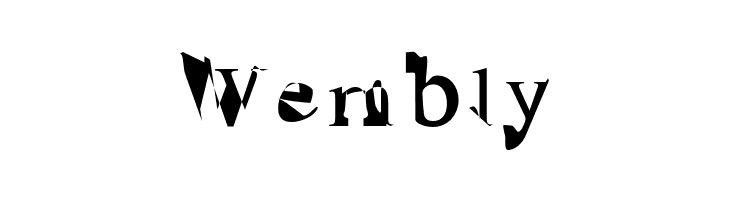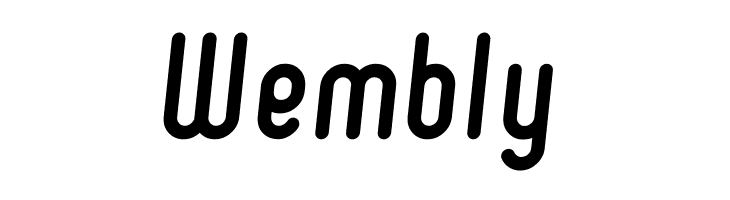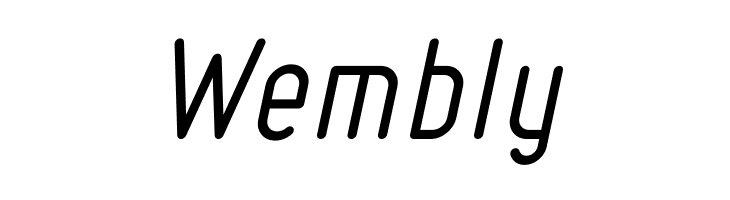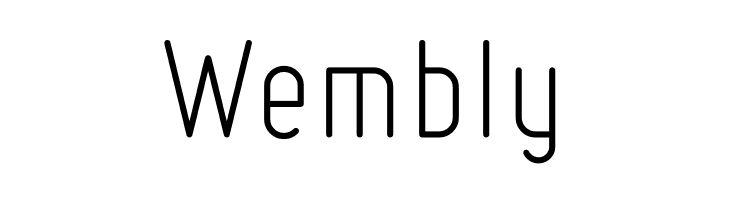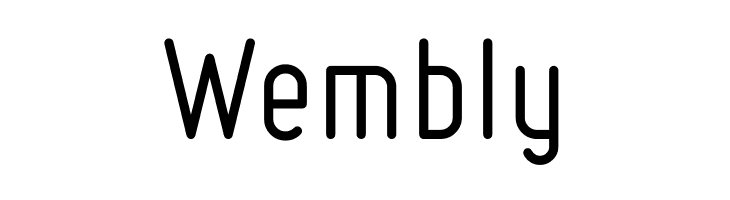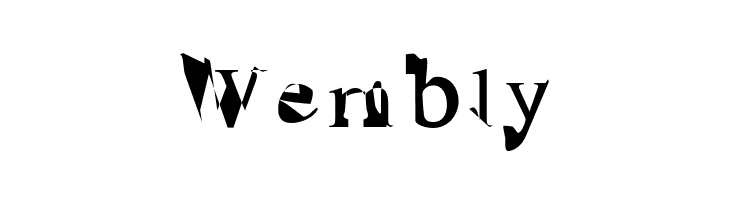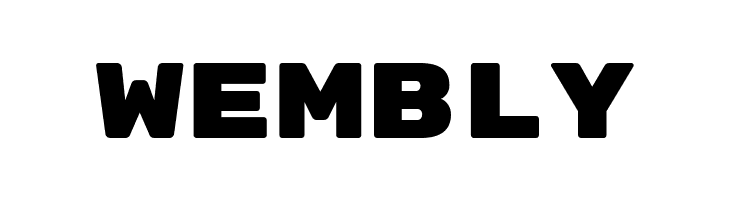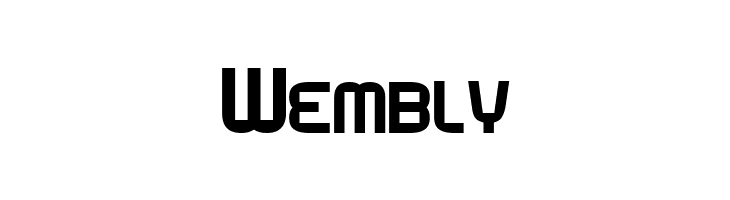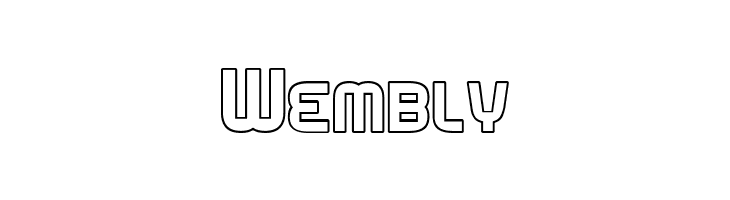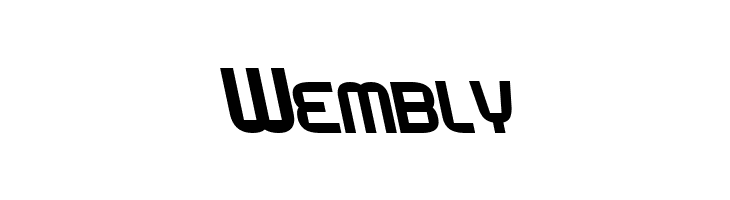
A modern, geometric sans-serif font with a clean and balanced design.
A modern, geometric sans-serif font with a friendly, italic style.
A bold, monospaced typeface with a modern, geometric design.
A bold, geometric sans-serif font with a strong, modern presence.
A modern, geometric sans-serif font with rounded edges and uniform stroke width.
A bold, geometric outline font with a modern and futuristic style.
A bold, geometric font with a modern and robust appearance.
A modern, italicized font with bold strokes and a dynamic appearance.
A bold, geometric outline font with uniform line thickness and modern appeal.
A distressed serif font with a fragmented, aged appearance.
A distressed serif font with a fragmented, artistic style.
A distressed, italic serif font with a fragmented, edgy style.
A modern, rounded font with a clean and approachable design.
A modern, rounded sans-serif font with clean lines and balanced spacing.
A bold, rounded sans-serif font with uniform strokes and a modern look.
A modern, rounded font with bold weight and smooth curves.
A bold, italic, and modern font with rounded edges and a slightly condensed style.
A bold, italicized font with rounded edges and a modern, approachable style.
A bold, rounded font with a modern and approachable style.
A bold, italic font with a modern and dynamic style.
A modern, italicized font with rounded, smooth characters and consistent stroke width.
A modern, italicized font with sleek, elongated characters and consistent stroke thickness.
A modern, rounded font with a sleek, condensed design.
A clean, geometric font with a modern and minimalist design.
A modern, light, and italicized font with a sleek and minimalist design.
A modern, geometric font with bold, rounded characters.
A modern, geometric outline font with uniform strokes and a minimalist design.
A modern, outlined italic font with a sleek and dynamic style.
A modern, geometric stencil font with consistent line thickness and rounded edges.
A bold, modern stencil font with rounded edges and distinct breaks.
A bold, italic stencil font with a modern and dynamic style.
A bold, stencil-style font with rounded edges and heavy weight.
A bold, italicized stencil font with a modern and industrial style.
A modern stencil font with an italic slant and geometric design.